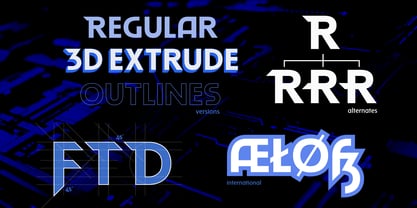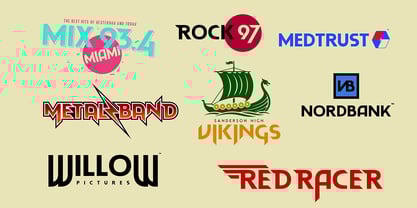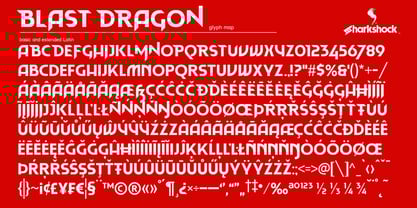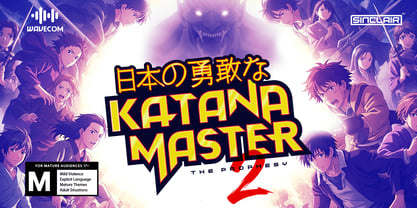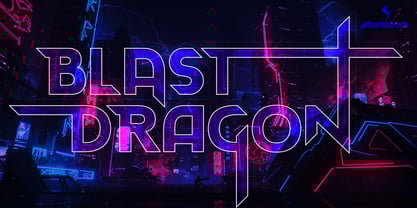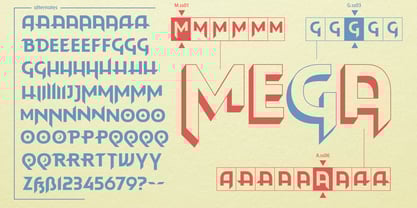
Blast Dragon
The Blast Dragon Font Family was designed by Dennis Ludlow and published by Sharkshock. Blast Dragon contains 3 styles and family package options. More about this family
Blast Dragon is an edgy, all caps display font with a vigorous nature. It contains a blend of familiar elements, rounded corners, and unexpected extensions. This is illustrated in glyphs such as A or 7. Most uppercase characters feature lines that terminate at a 45 degree angle. This is repeated elsewhere for consistency, most notably within serifs and numbers. Several ascenders and descenders extend outward in a blade-like fashion. The result is captivating type that keeps the eyes moving throughout. Use it for a sports logo, anime poster, or web graphics.   Blast Dragon comes in 3 different versions. It includes Basic and Extended Latin, punctuation, kerning, stylistic sets, and alternates. Please check the glyph maps for all supported characters.